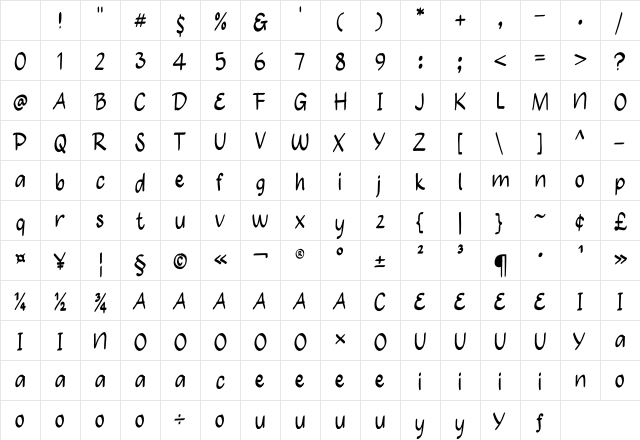
Complete Quick Fruit Regular glyph index. Displaying only characters natively supported by Quick Fruit Regular font.
Quick Fruit is a composed and adaptable typeface that performs quietly and consistently across a wide range of design contexts.